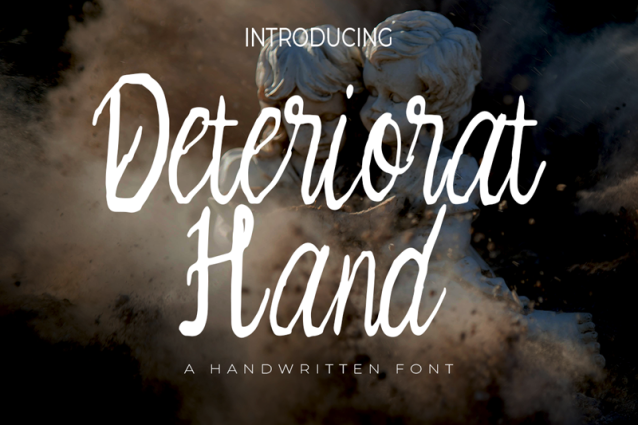
Deteriorat Hand Font
Deteriorat Hand Font is a sophisticated and stylish script font that beautifully captures the essence of a handwritten signature. Its graceful, flowing lines and elegant curves make it perfect for adding a personal and refined touch to a wide range of design projects. Whether you’re creating logos, branding, invitations, or any other work that benefits from a signature style, Srikandi Cakep delivers a sense of authenticity and charm.